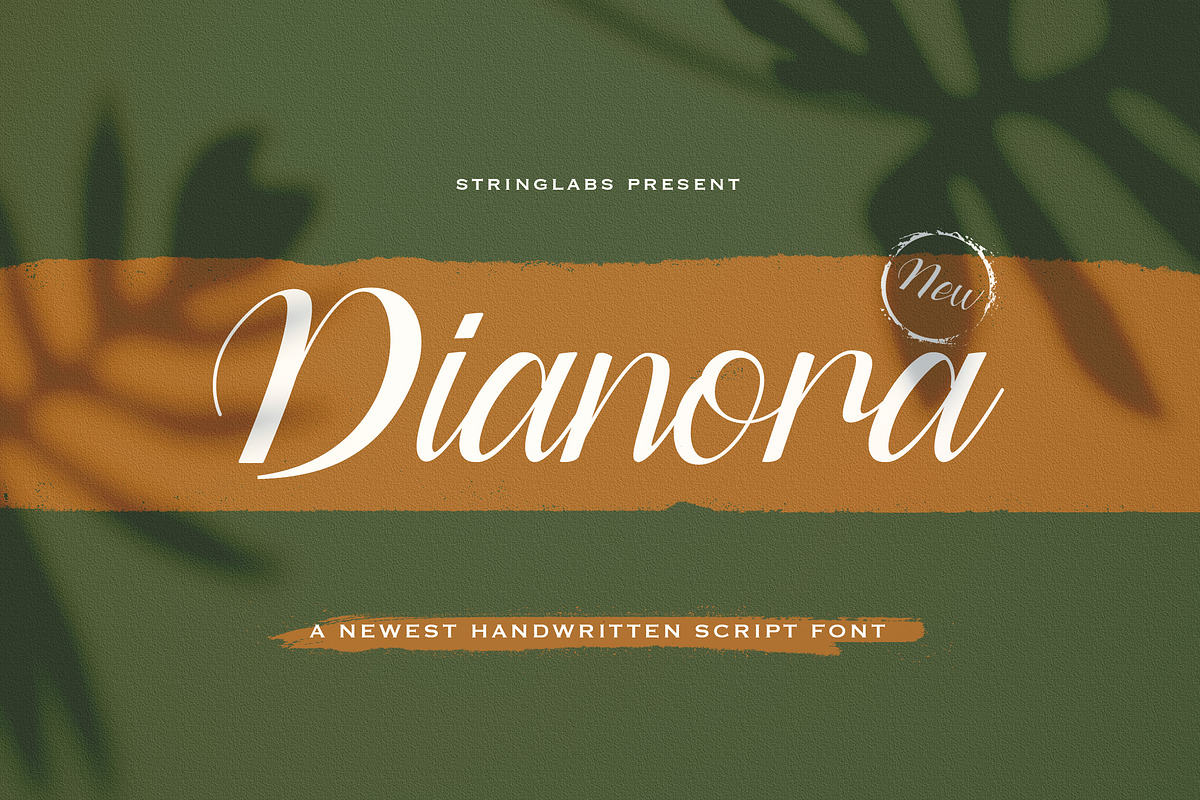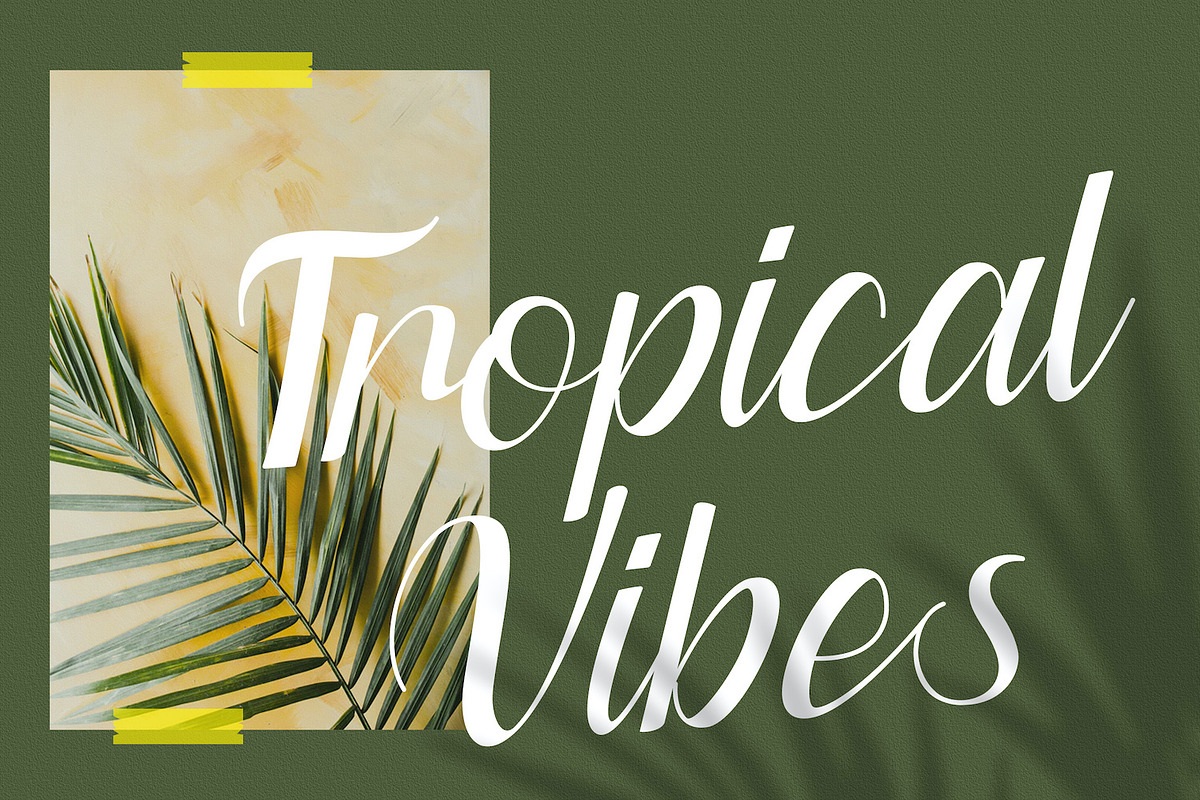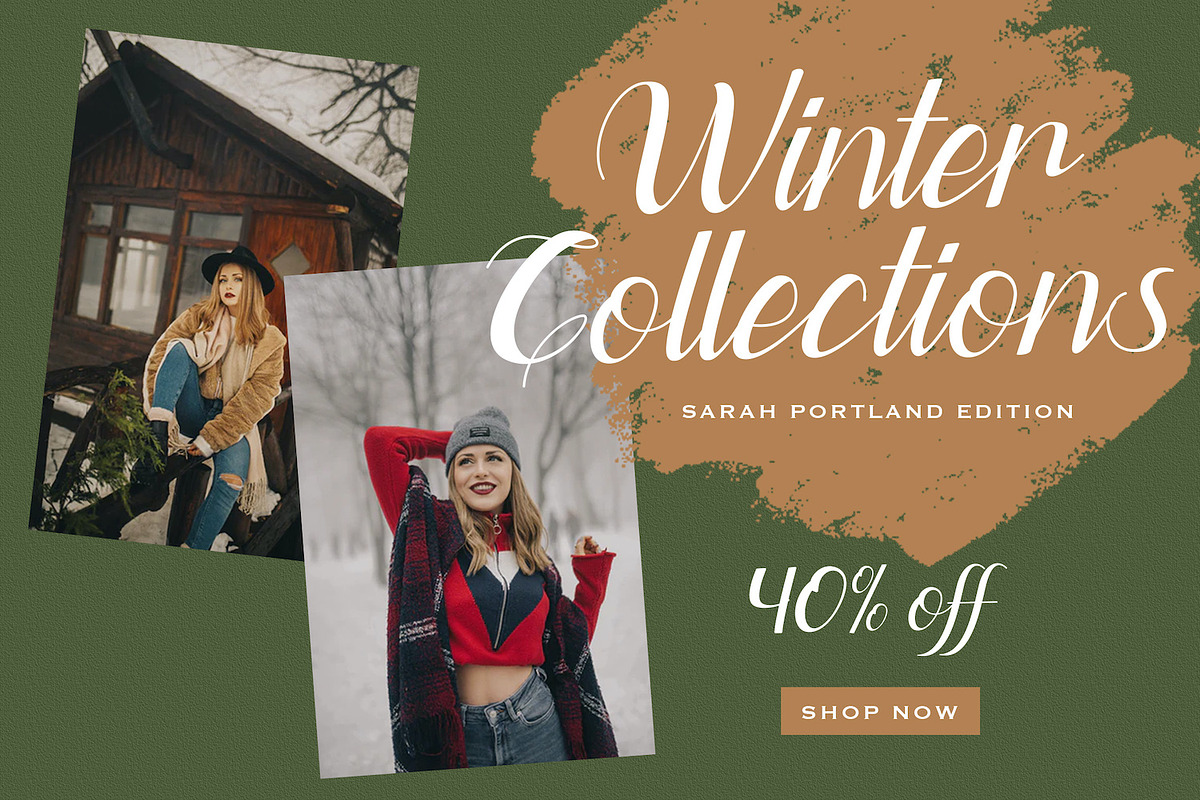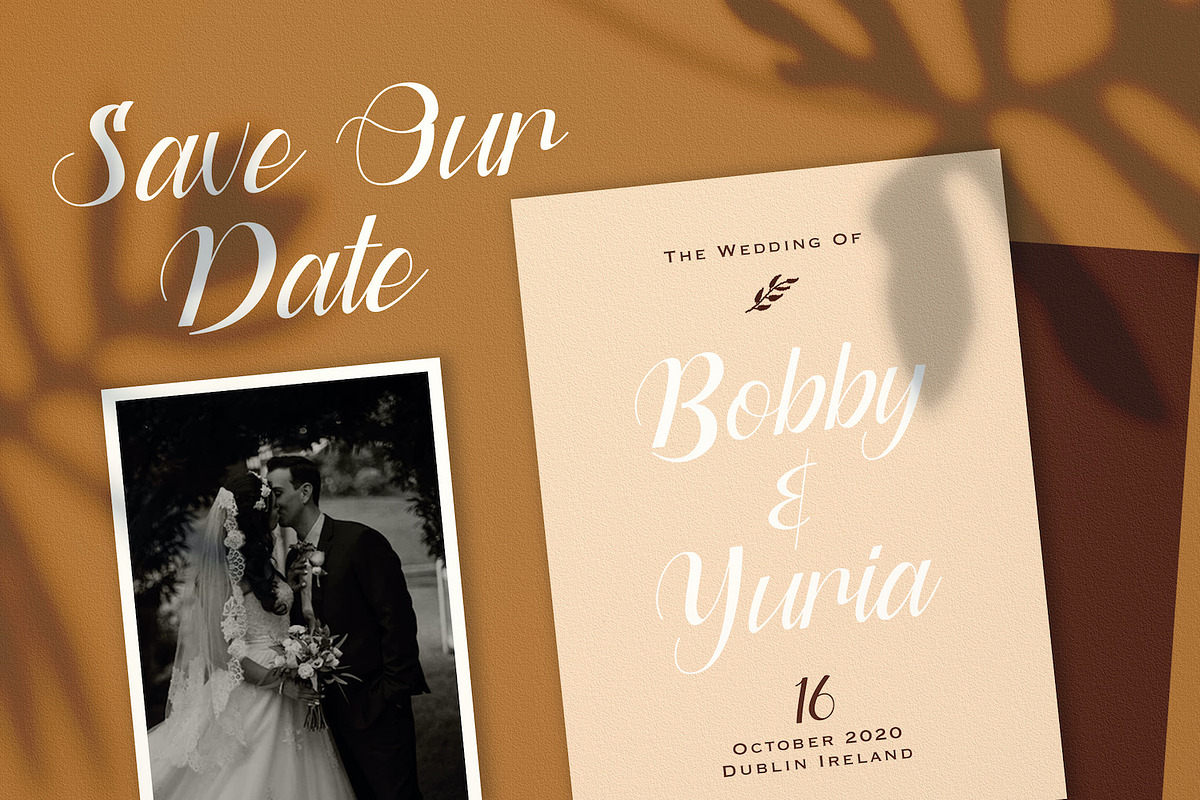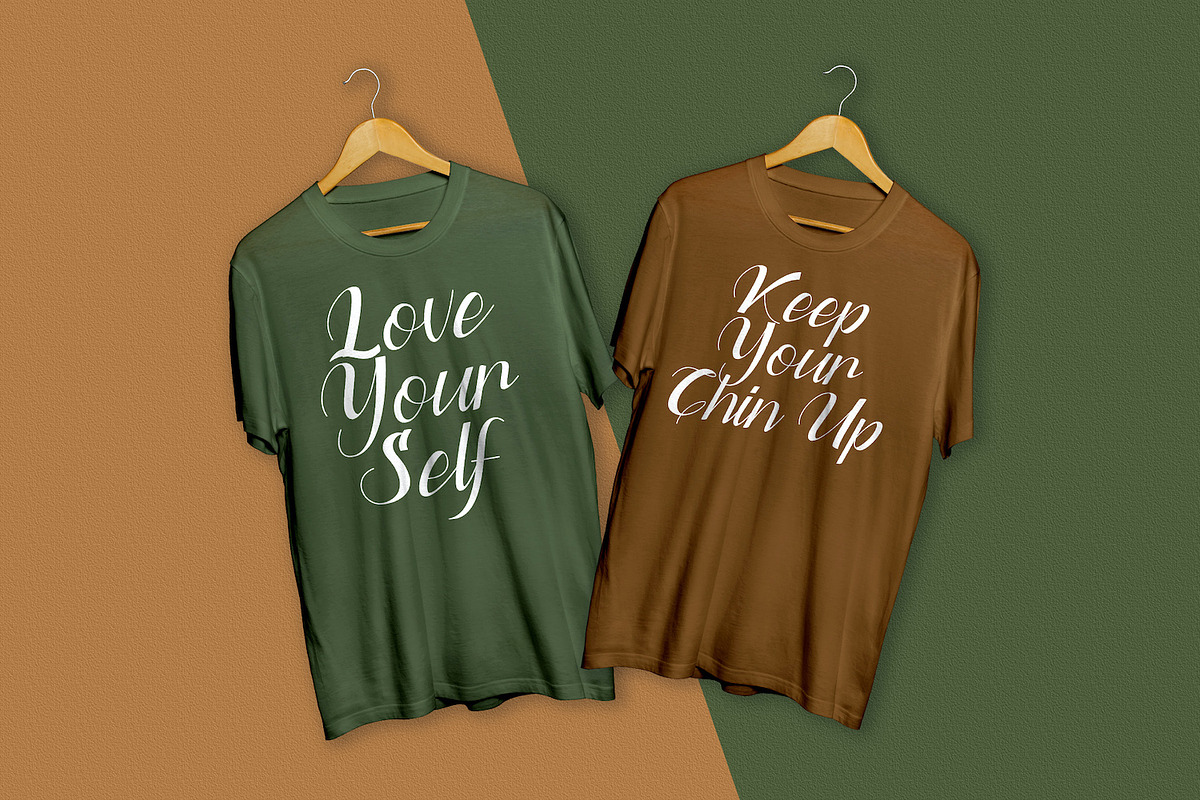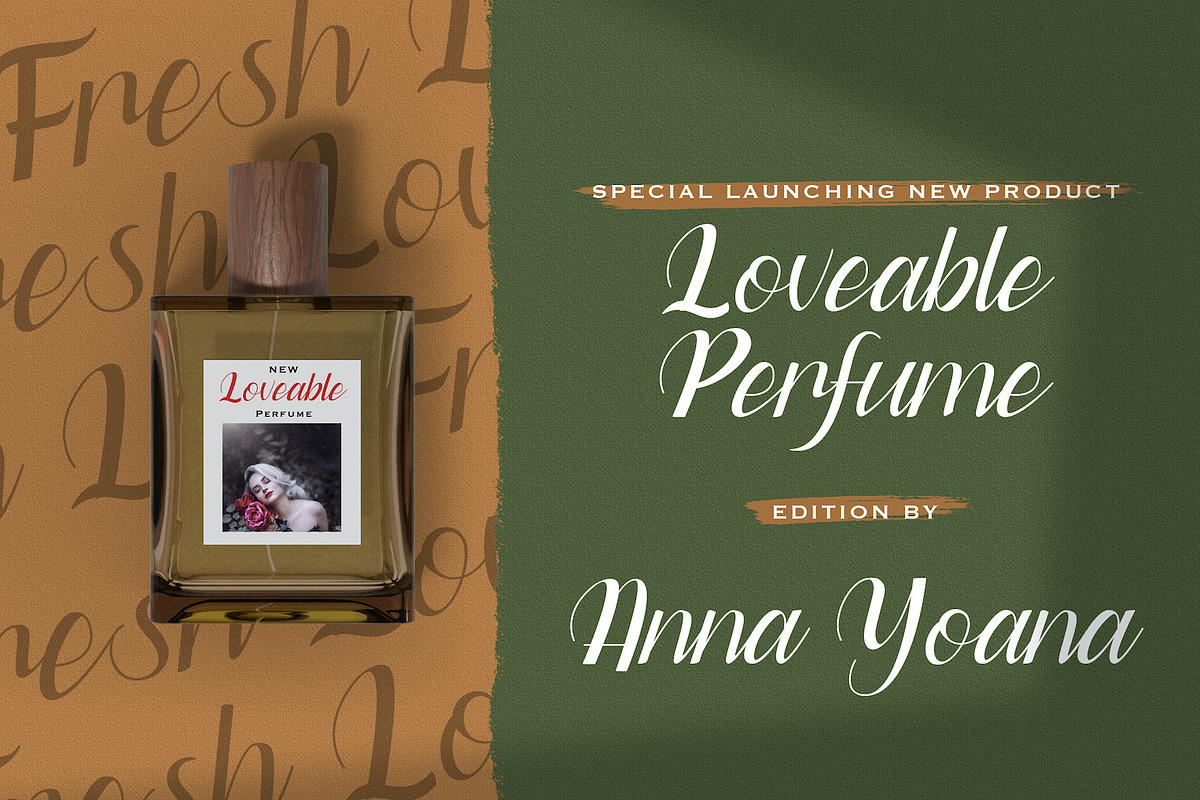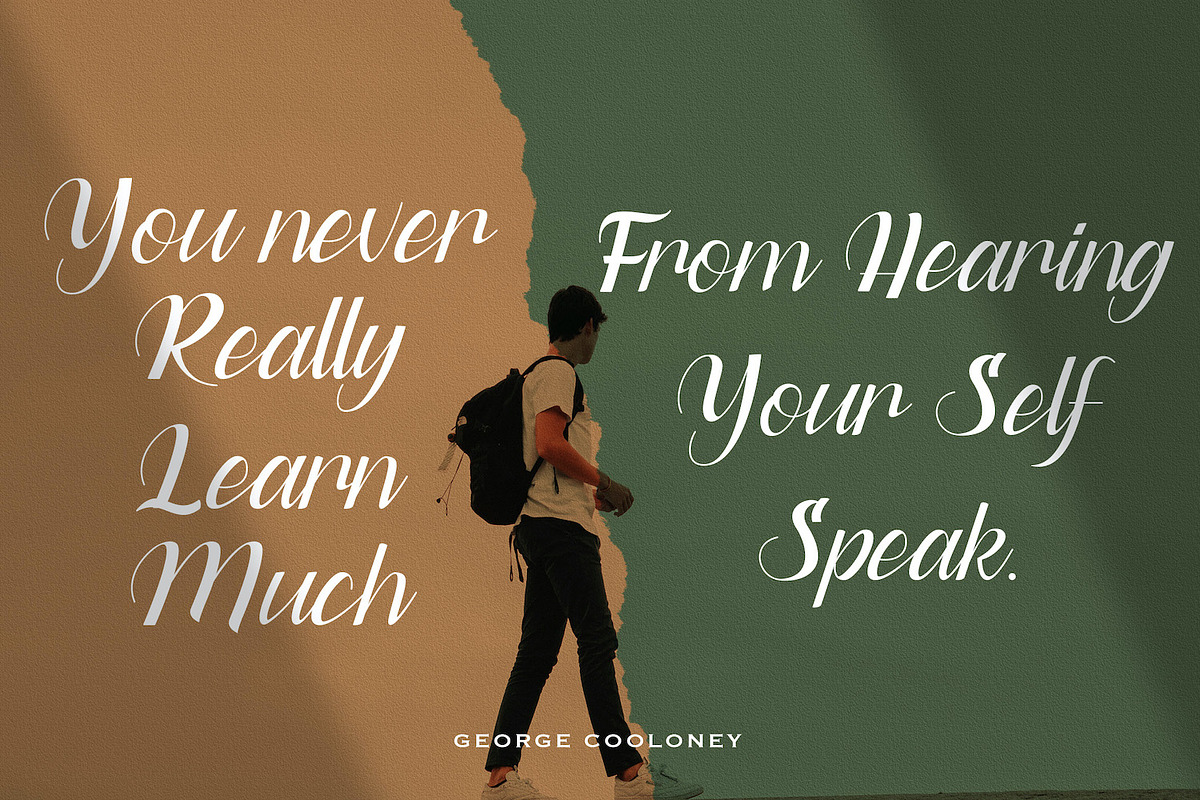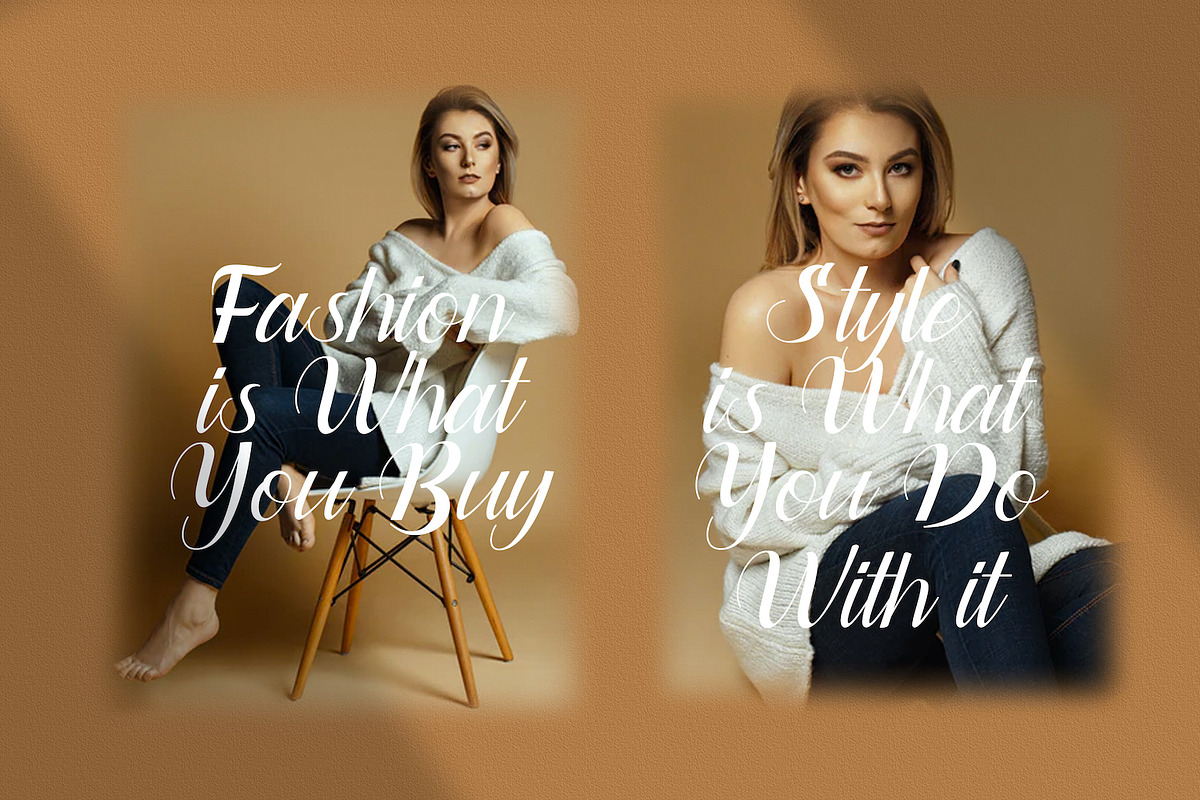
Dianora - Handwritten Font
Introducing Dianora - Handwritten Script Font
Dianora is a Script Font with Lovely Handwritten Calligraphy Style. Dianora is an equally elegant and authentic script, full of love. Use it to add a romantic spark to any design project!.
Why Dianora - Handwritten Font is worth a look
Dianora - Handwritten Font by StringLabs fits naturally into Branding, posters, packaging, typography.